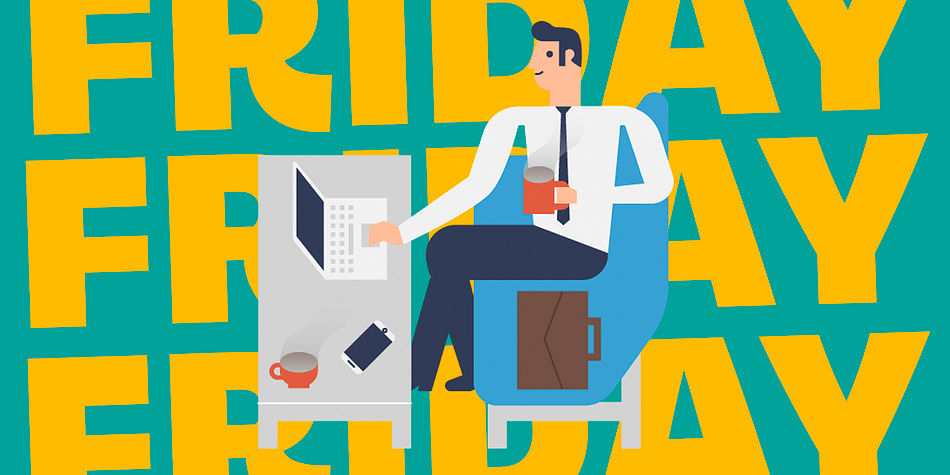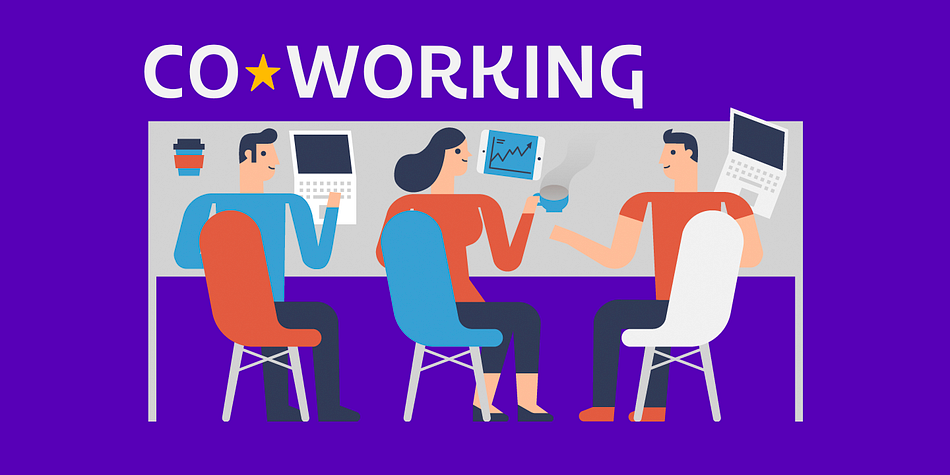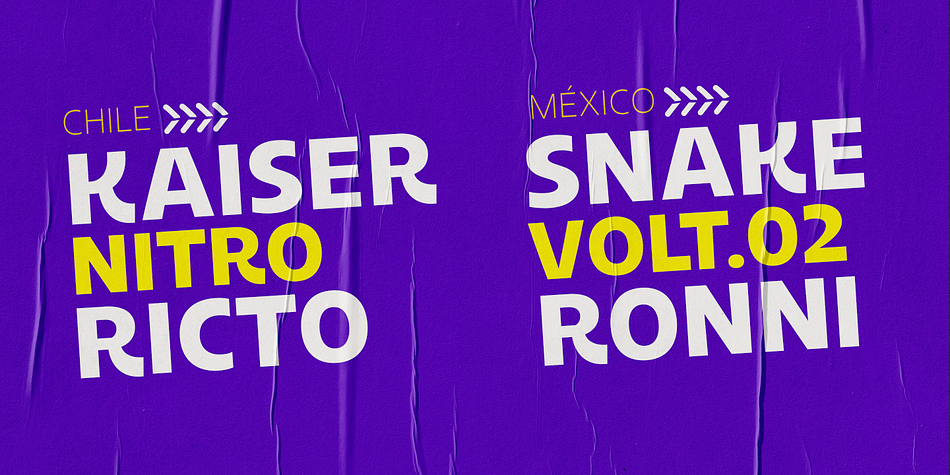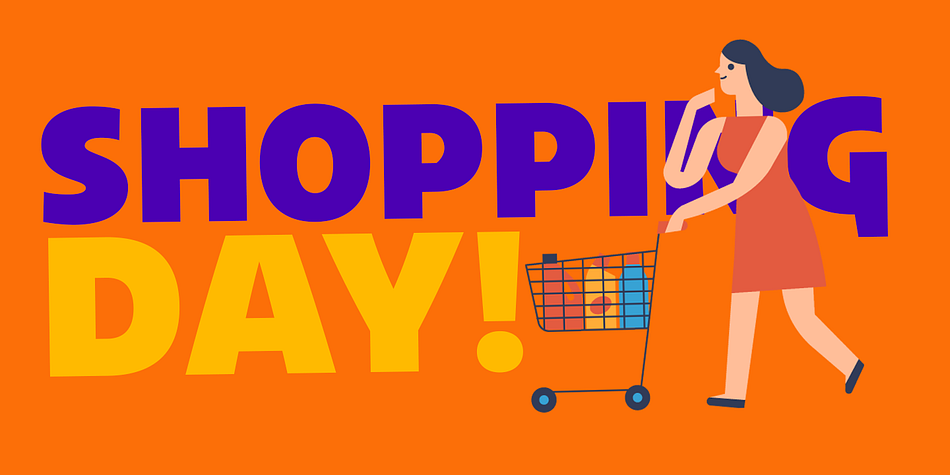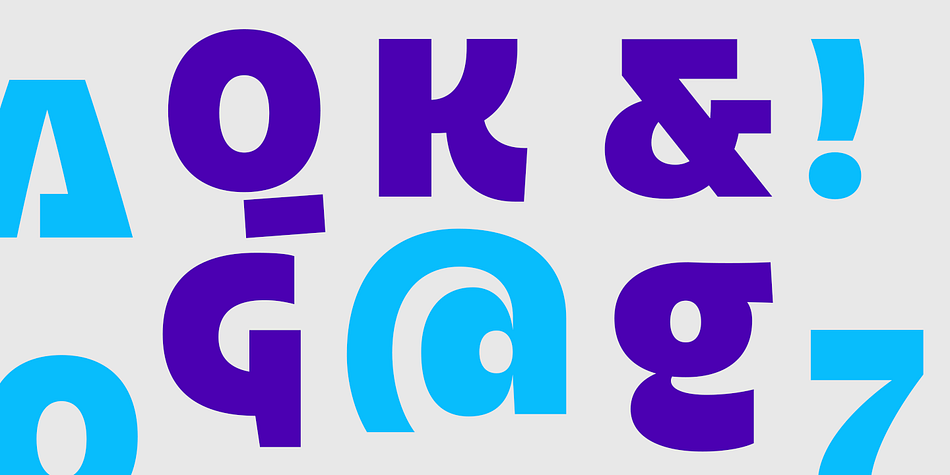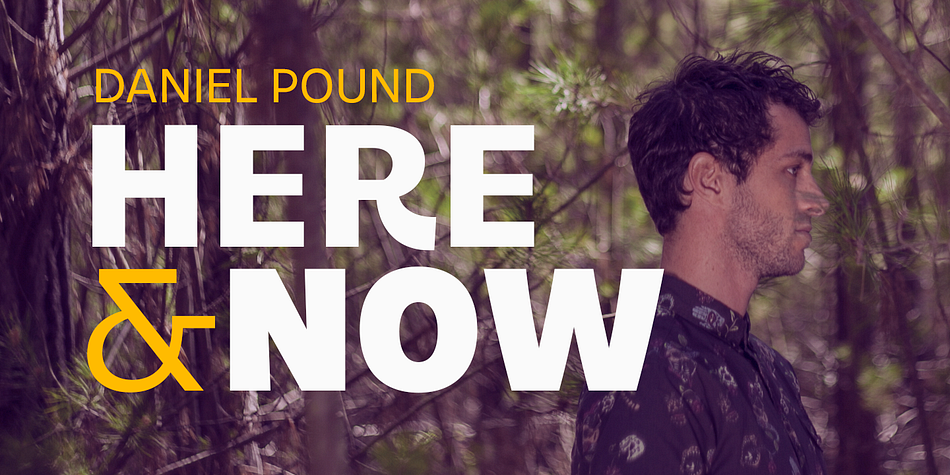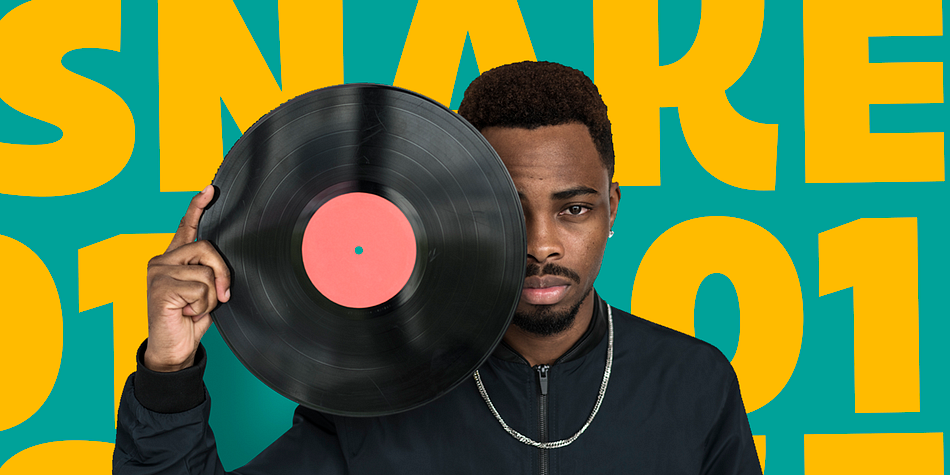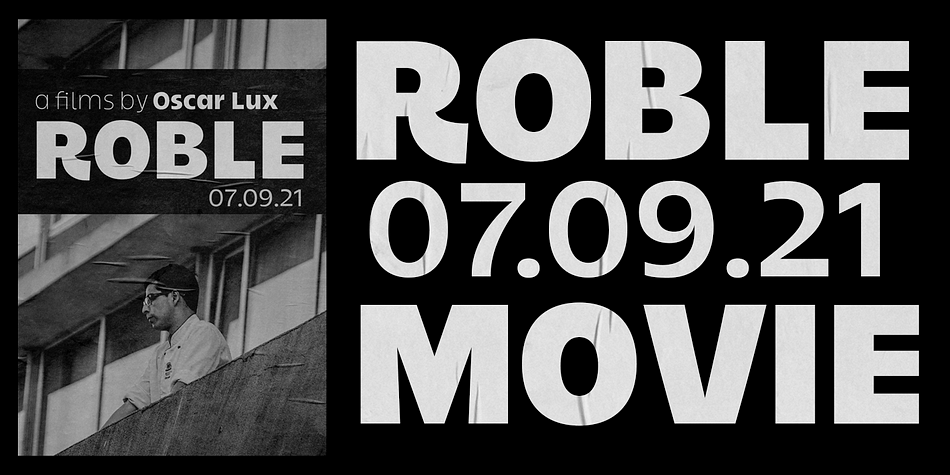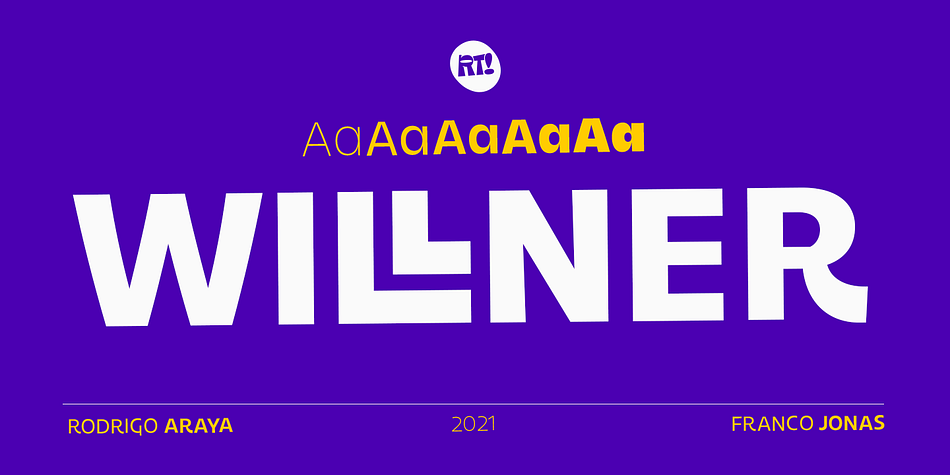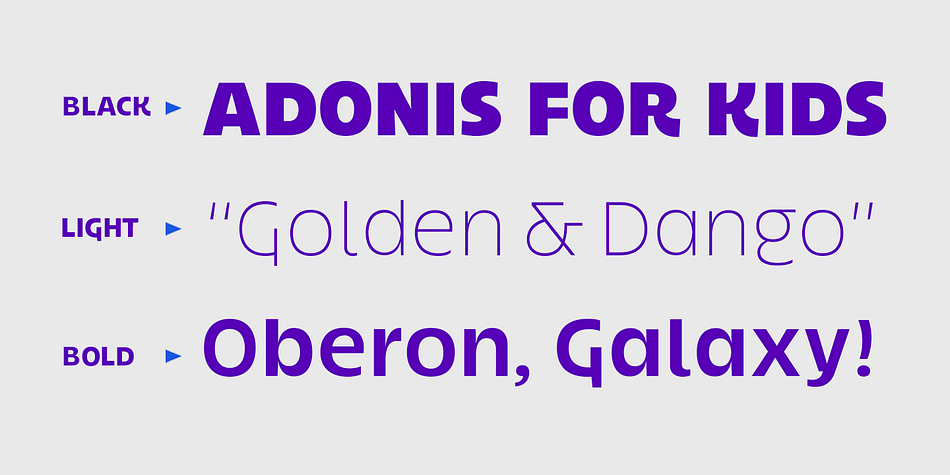
Designed by Rodrigo Salas and Franco Hernández, Willner is a sans serif font family. This typeface has five styles and was published by Rodrigo Typo.
A sans typeface with a very expressive gesture special for titles with 5 styles of weights